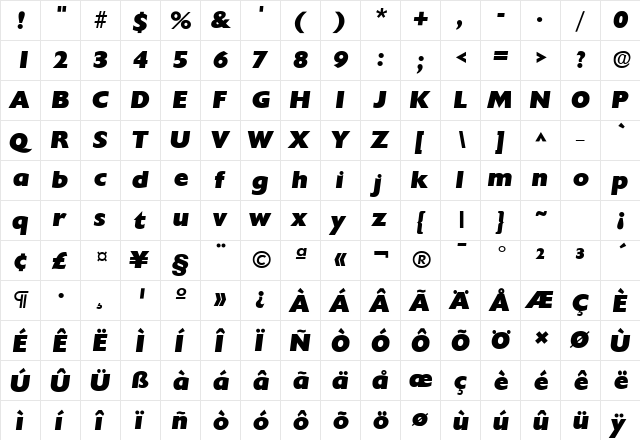
Chanson Heavy SF Bold Italic
Design Context for Chanson Heavy SF Typeface
Chanson Heavy SF is a composed and adaptable typeface that performs quietly and consistently across a wide range of design contexts. The dynamic lean of this cut emphasises speed and emphasis in any layout. Its bold stroke weight gives it real presence on the page.
Pro Tip: Use Chanson Heavy SF for emphasis, pull quotes, and subheadings where its slanted energy can add rhythm to the layout.